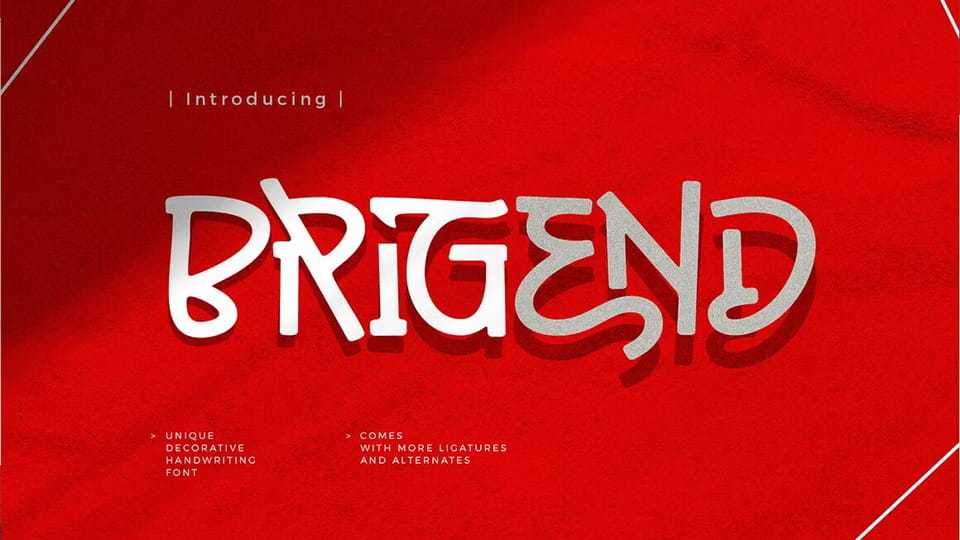
Brigend Font › Fontesk – Fonte Grátis
Brigend Font › Fontesk
Download Brigend font, a sophisticated monoline handwriting typeface that exudes elegance and charm crafted with meticulous attention to detail.